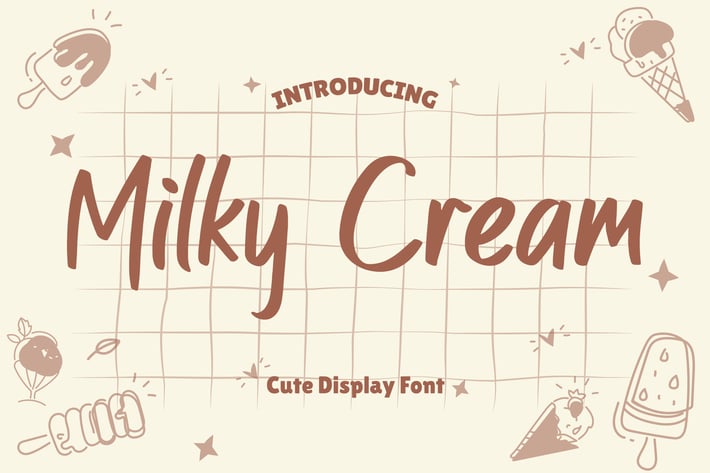
Milky Cream Font
Milky Cream is a cool and playful handmade marker font. This font is good for logo design, Social media, Movie Titles, Books Titles, short text even long text letters, and good for your secondary text font with sans or serif.
Standard Uppercase & Lowercase
Multilingual : ä ö ü Ä Ö Ü ß ¿ ¡
Alternate & Ligature